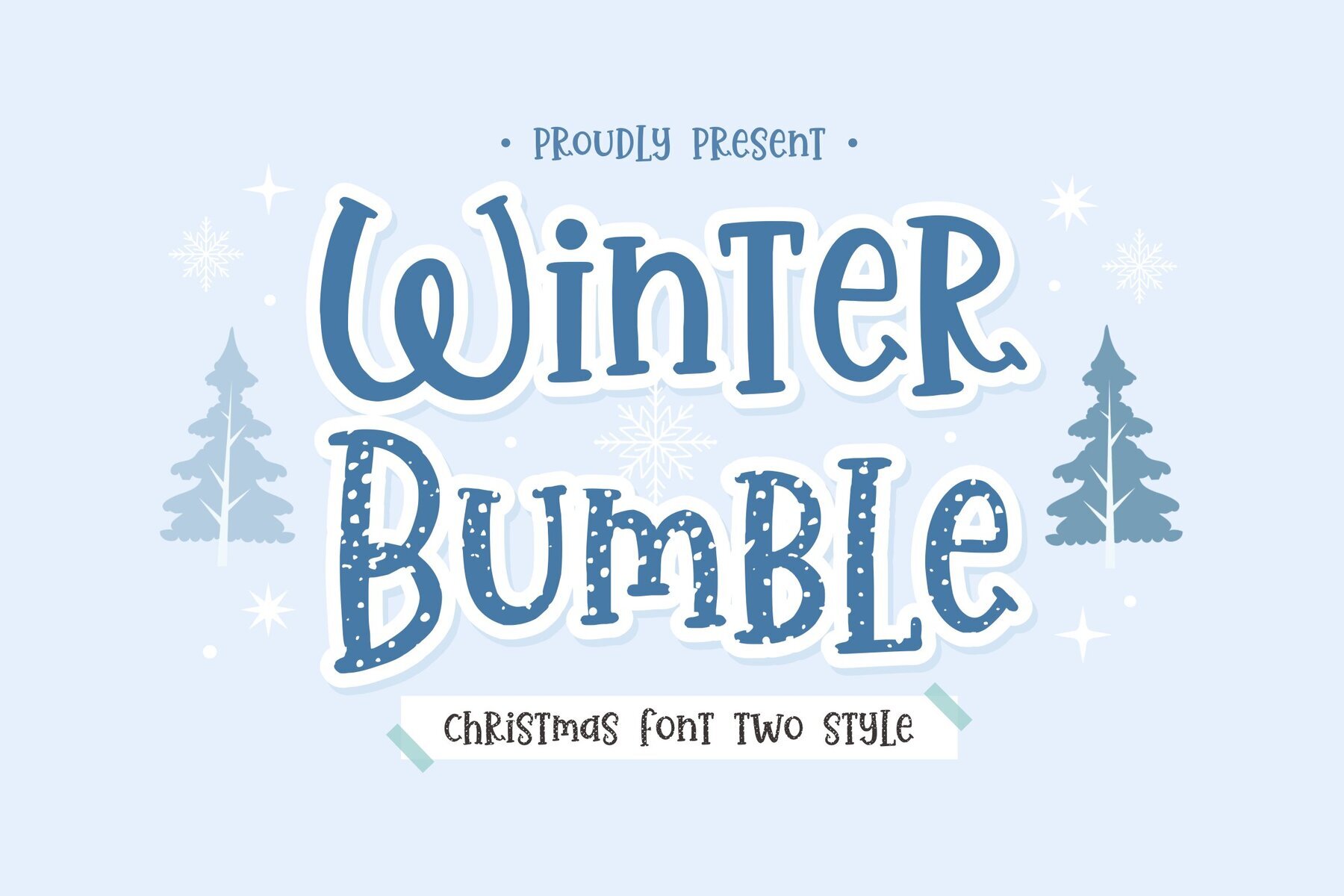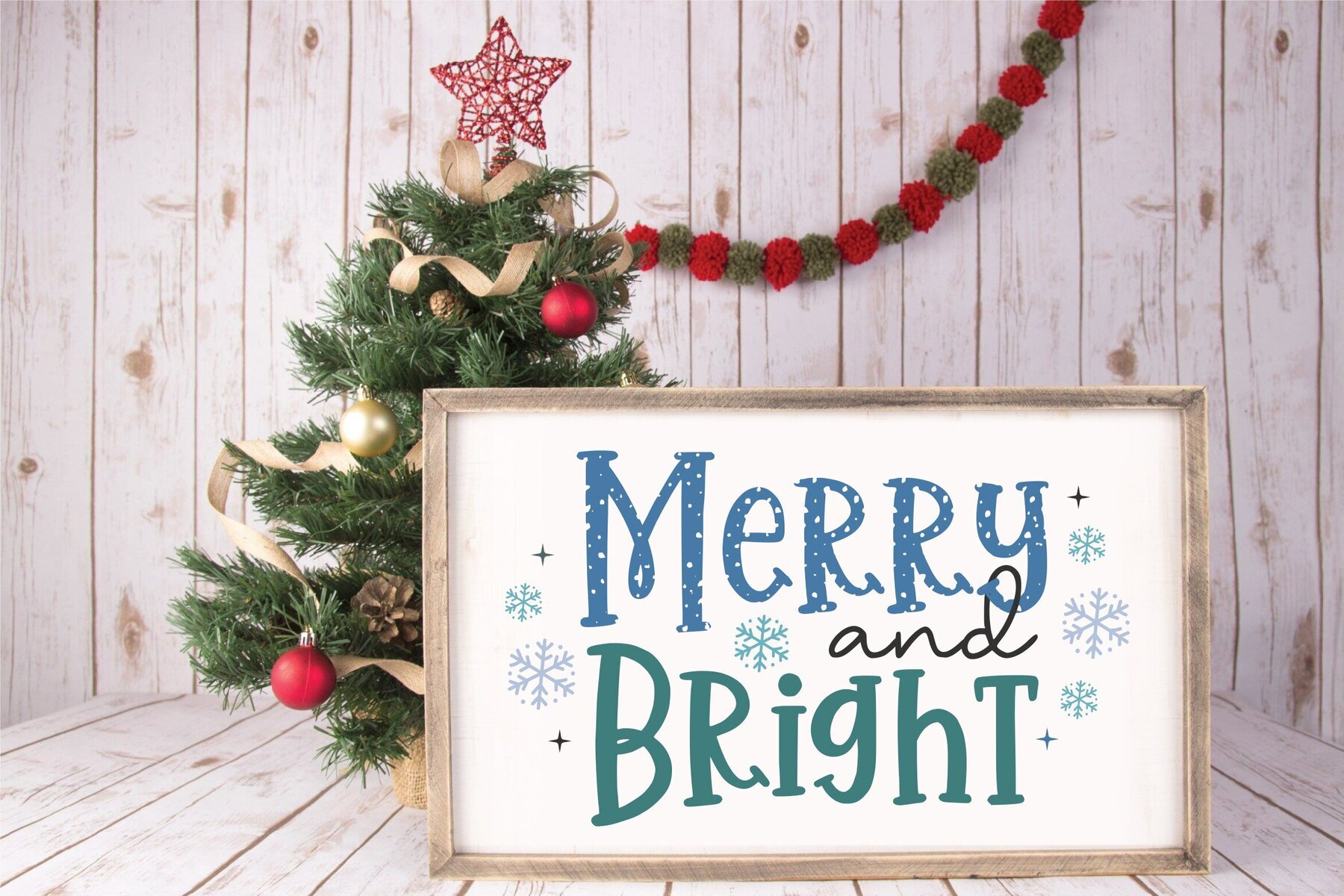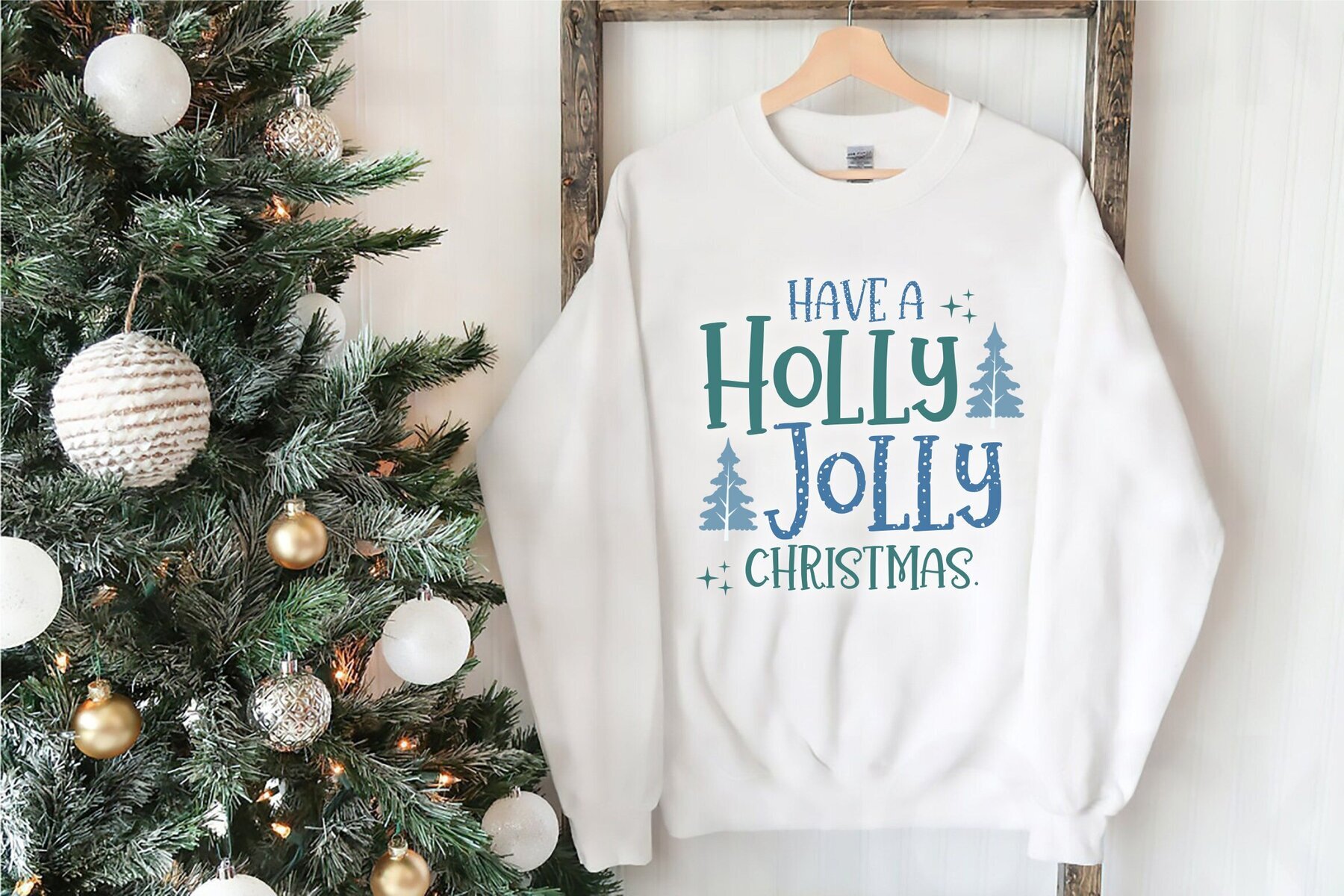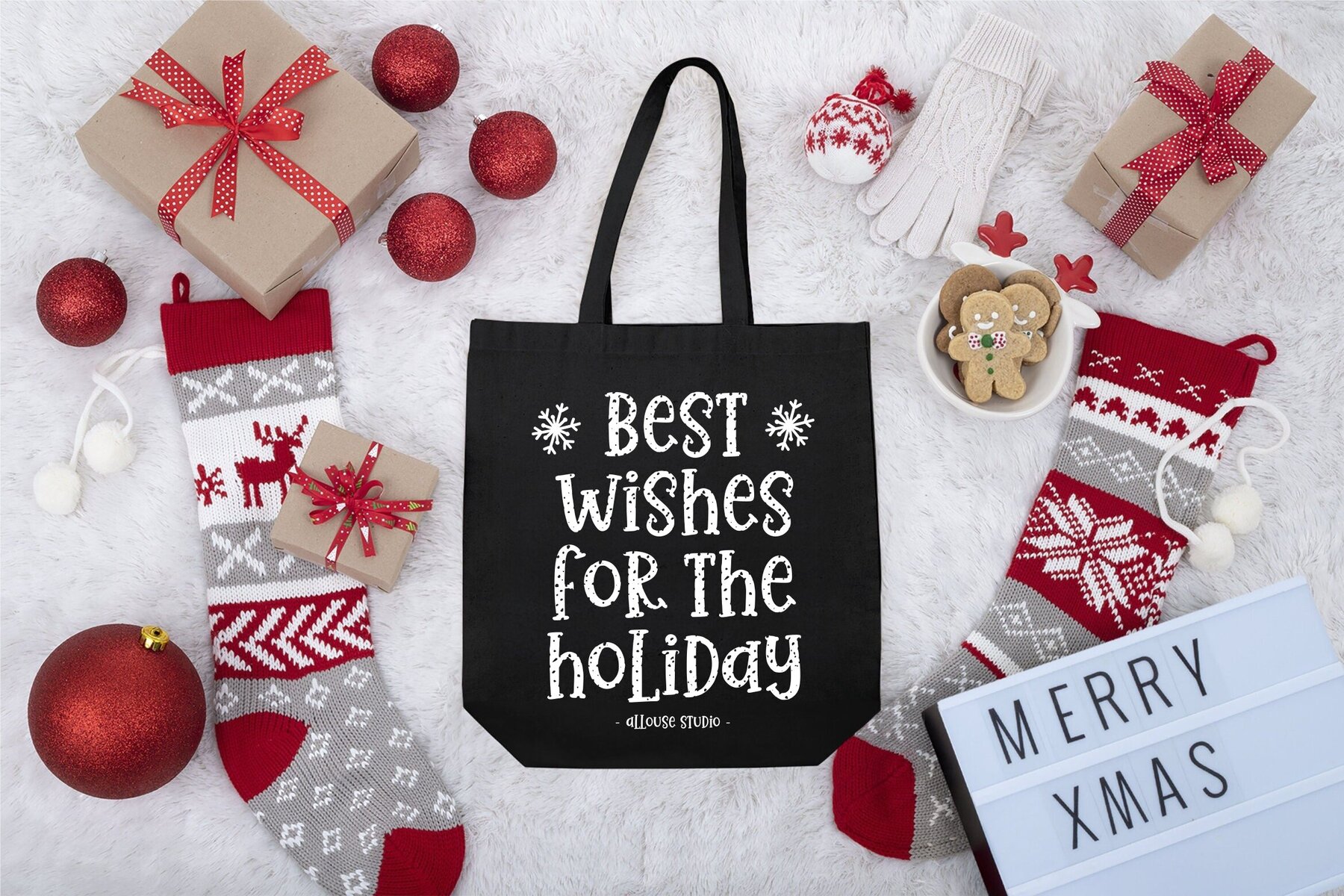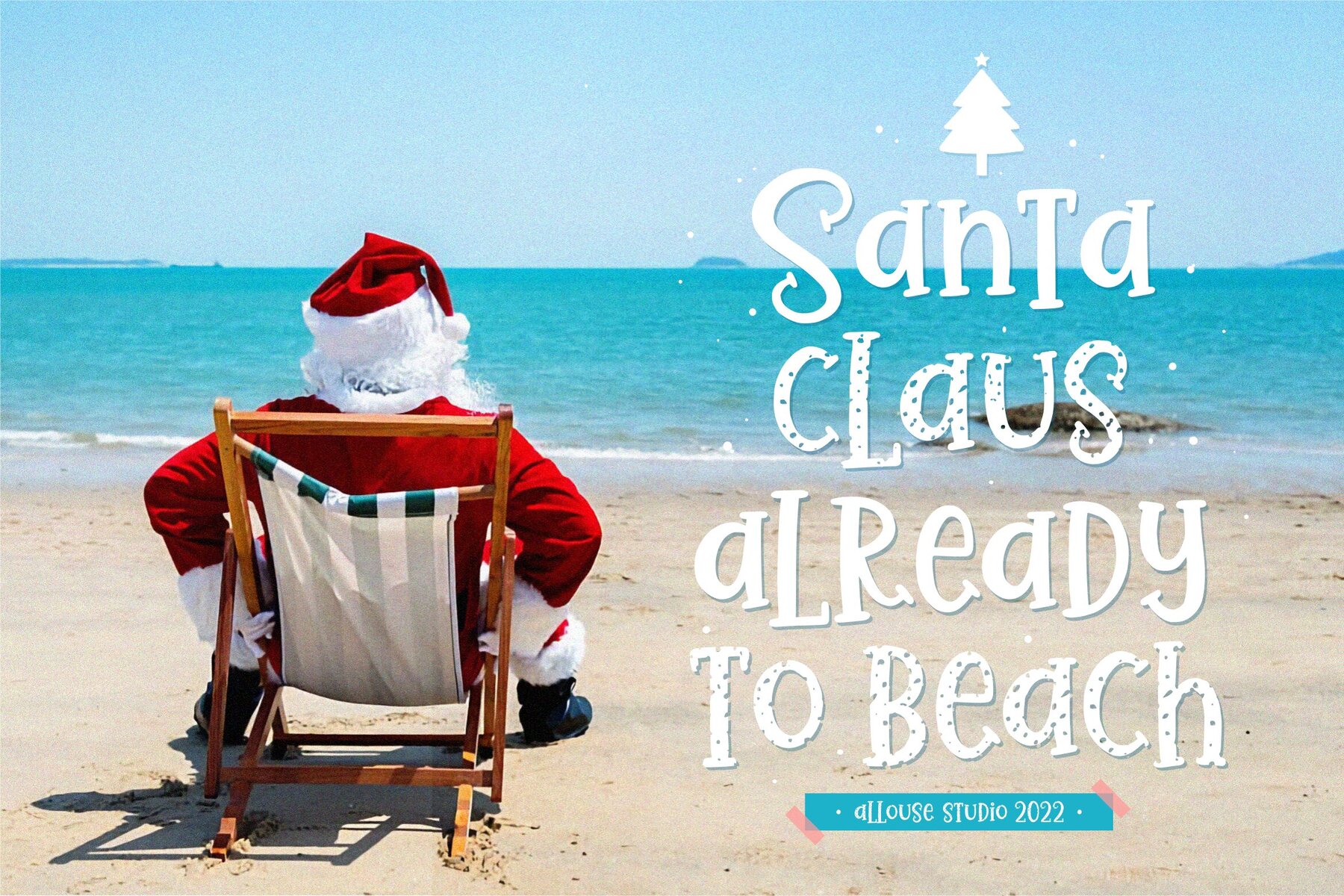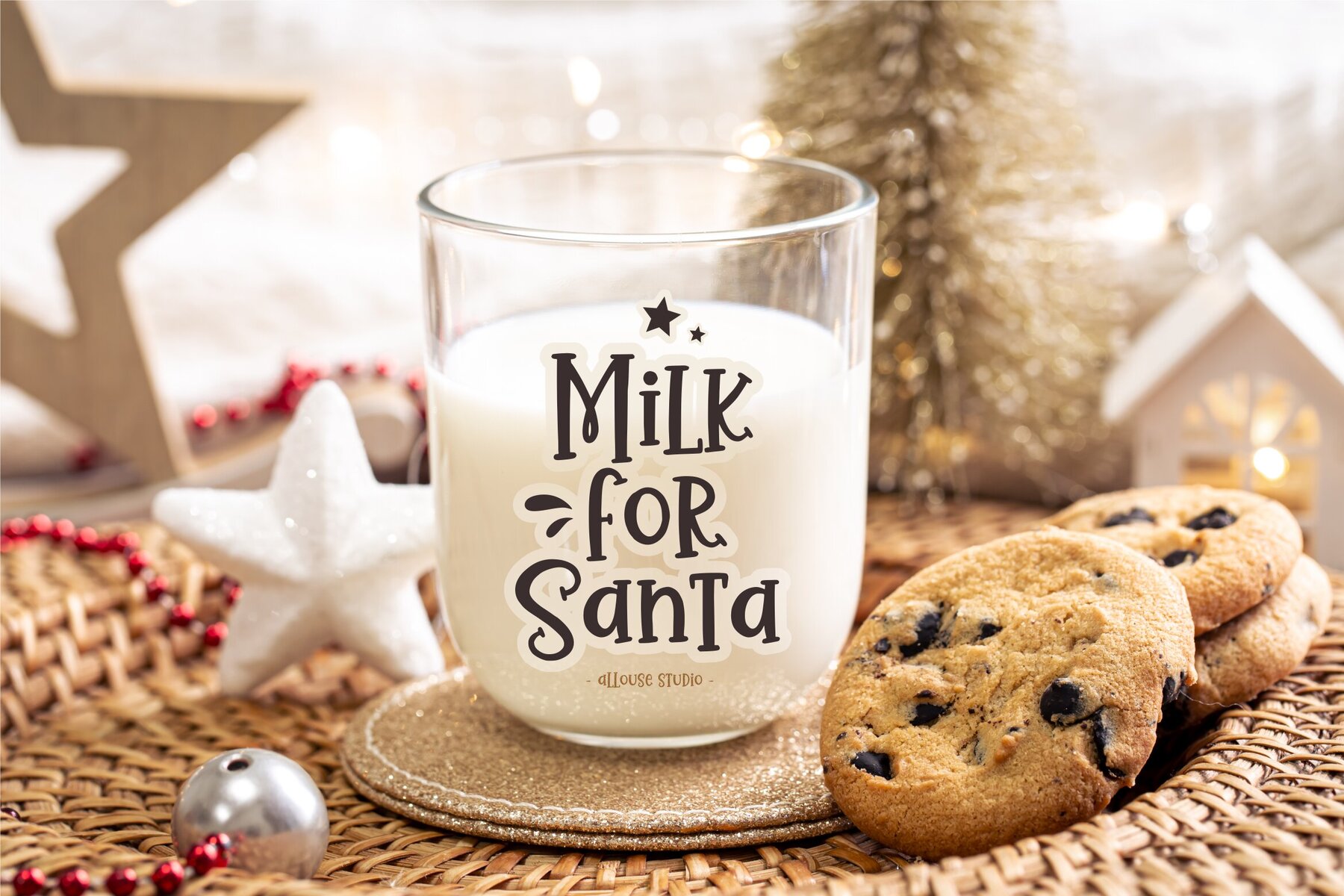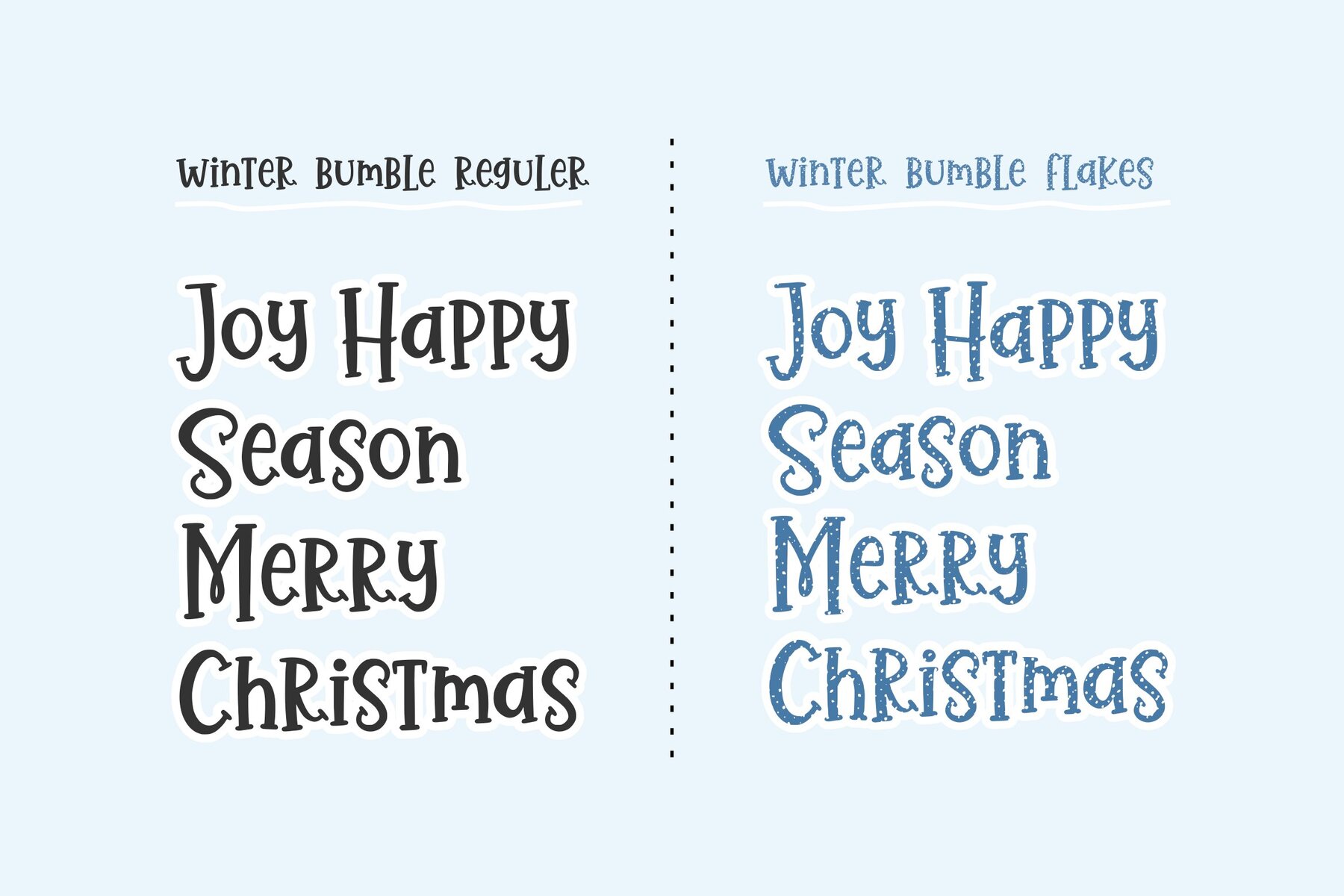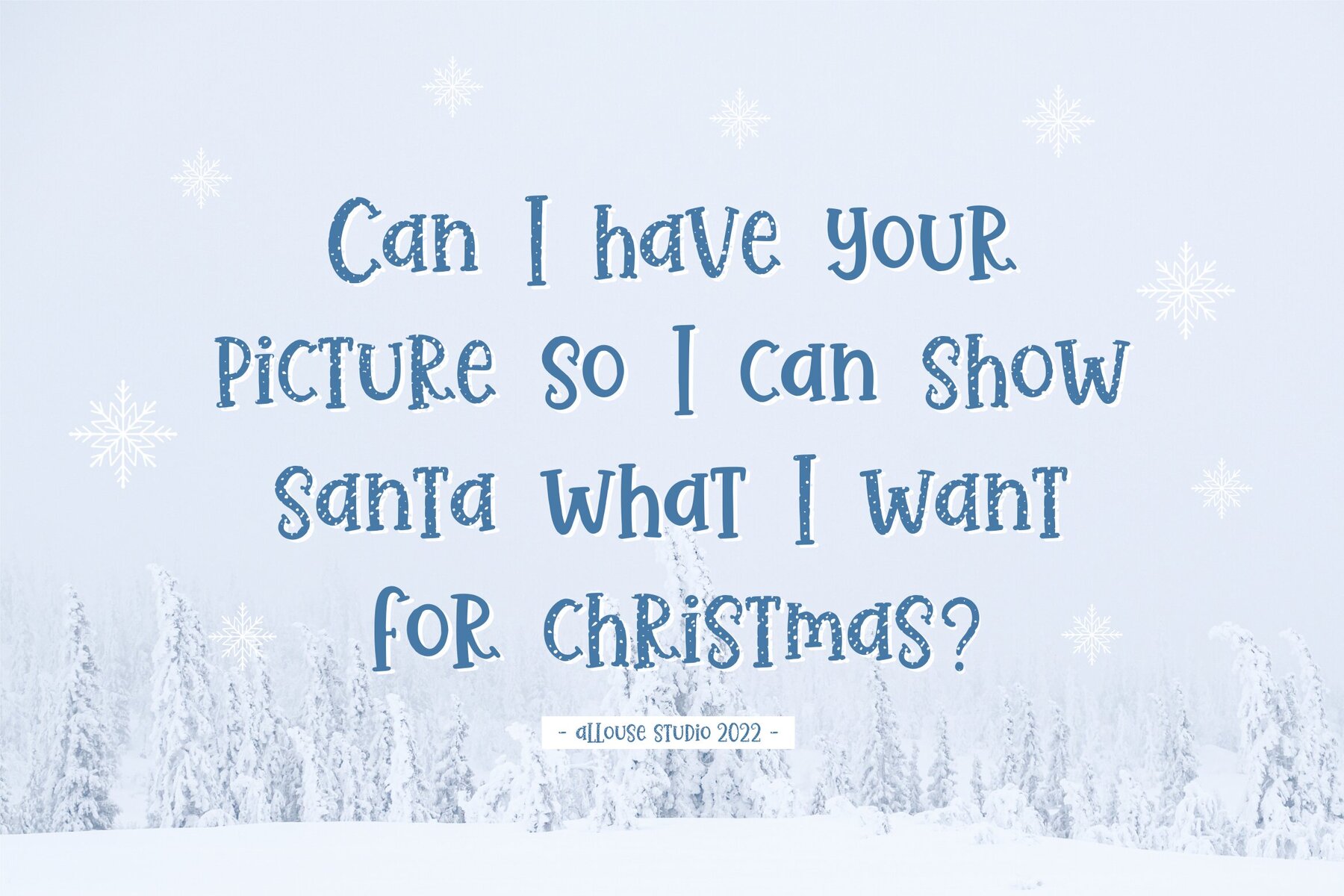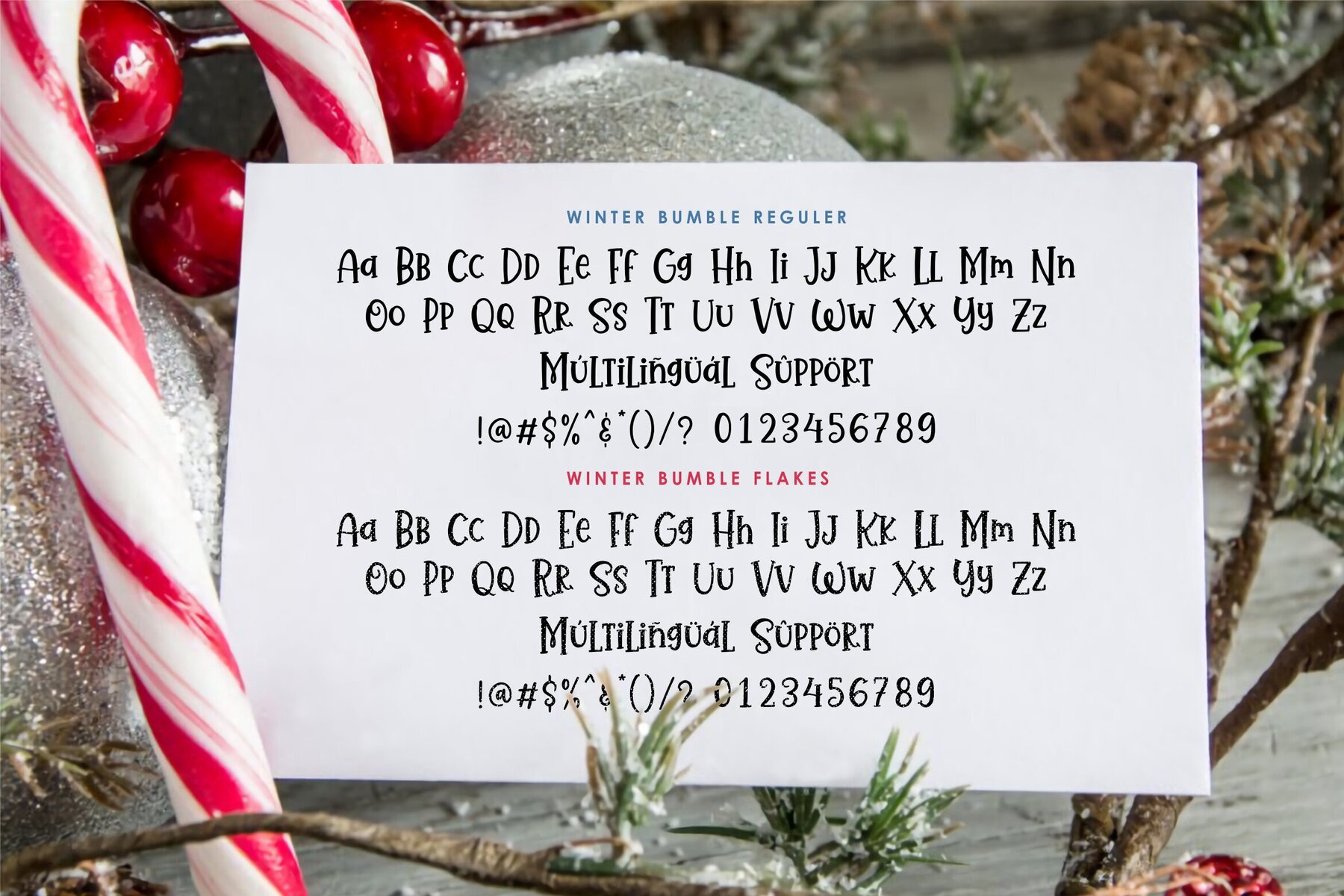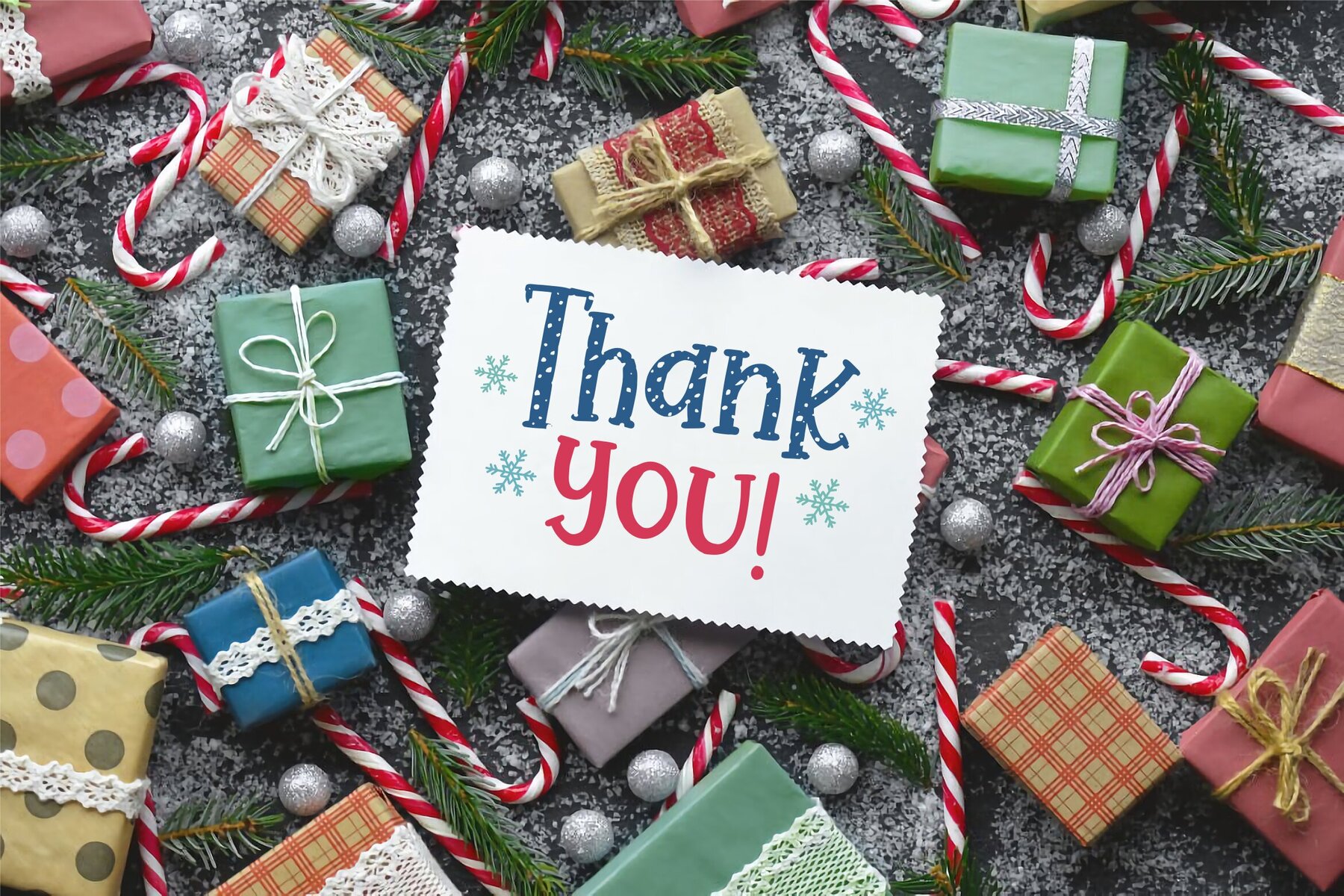
Winter Bumble: A Festive Christmas Font
Winter Bumble is a charming typeface that captures the spirit of the holiday season. With its two distinct styles, this font is ideal for a variety of applications, whether you're working on product packaging, a branding project, a magazine, or crafting a personal greeting for social media or a wedding invite.
Unique Features
• Holiday Spirit – Evokes the festive atmosphere of Christmas.
• Versatile Use – Perfect for both professional branding and personal projects.